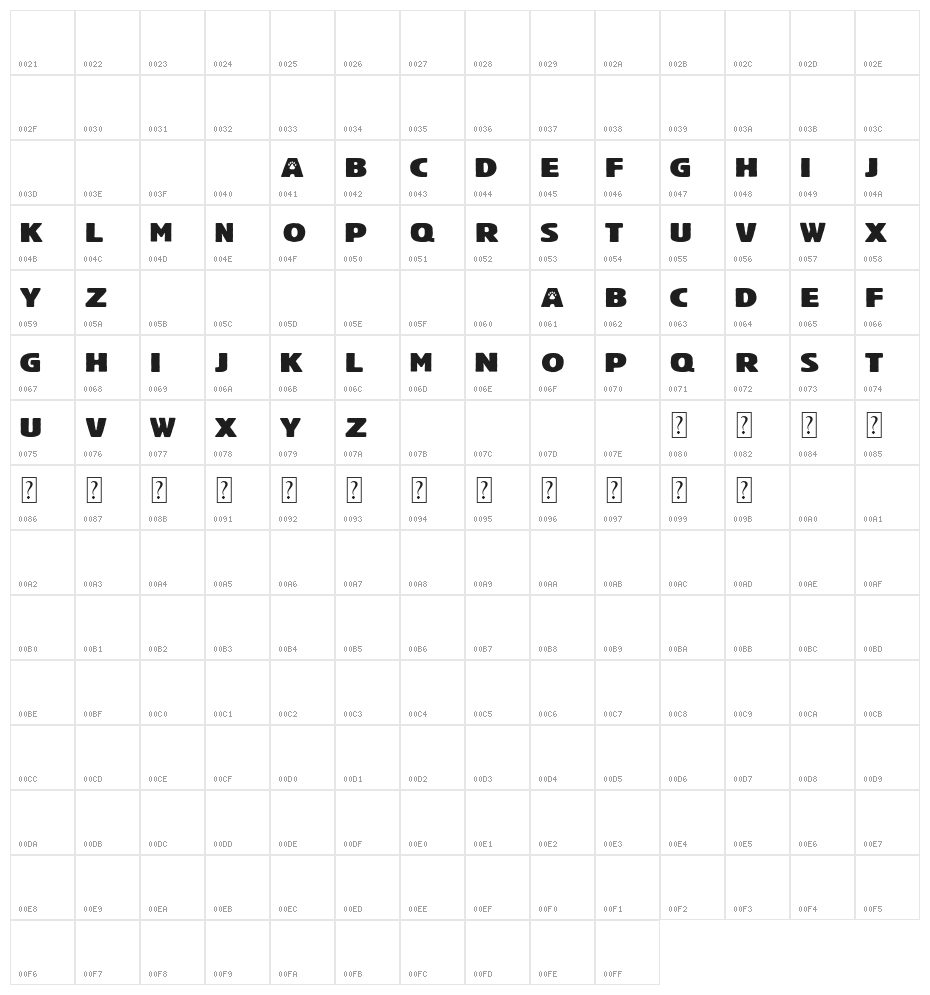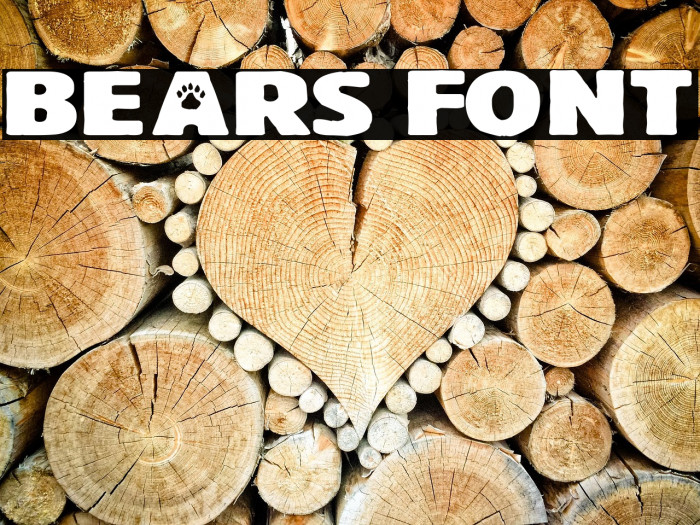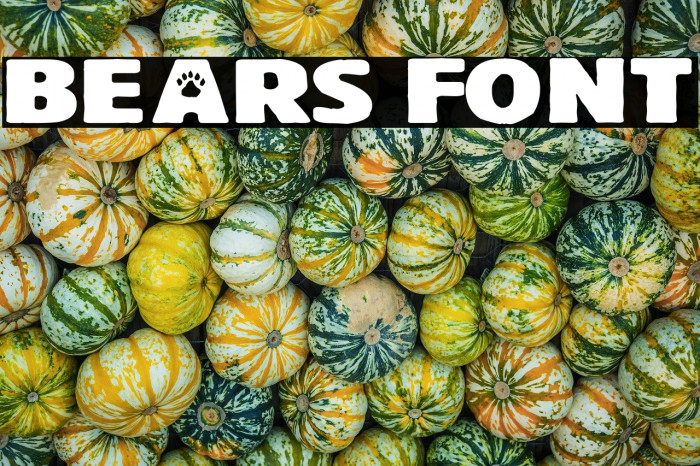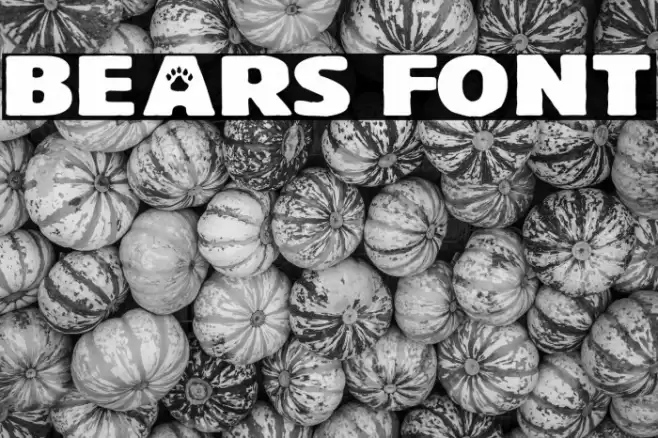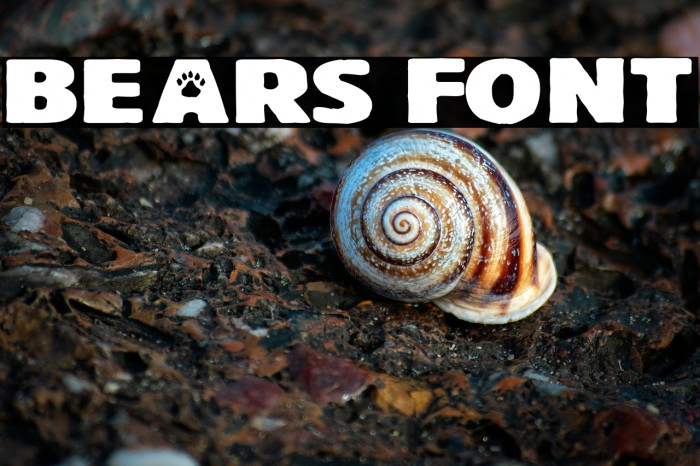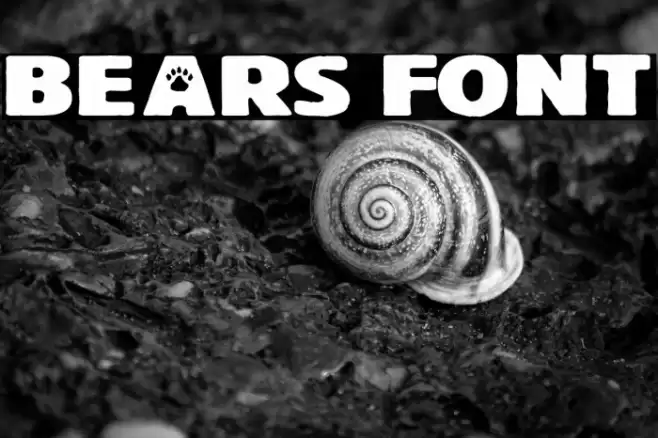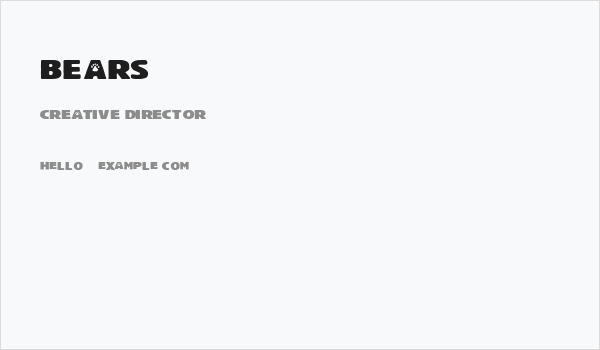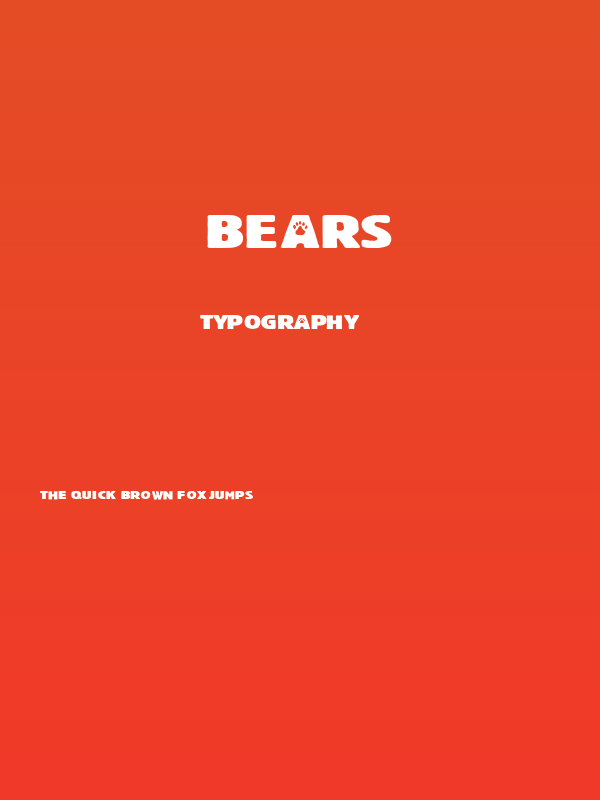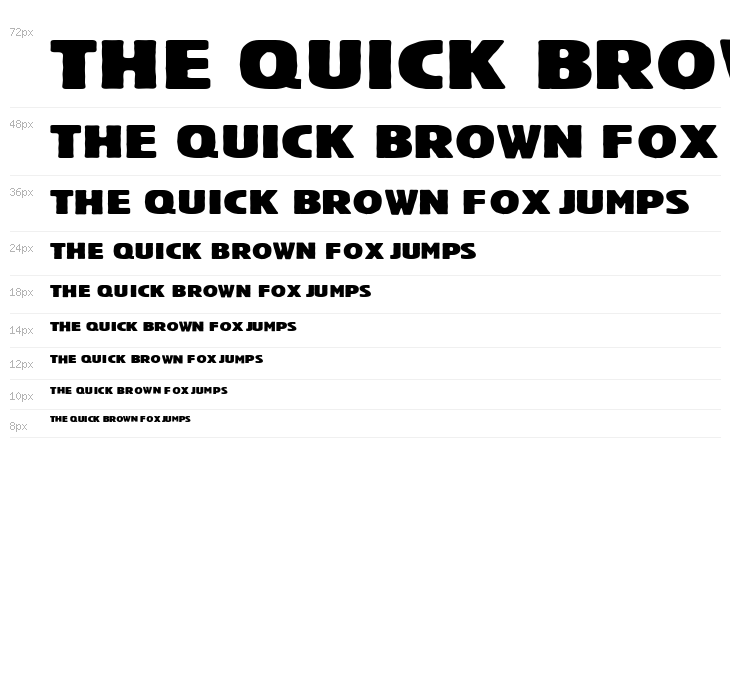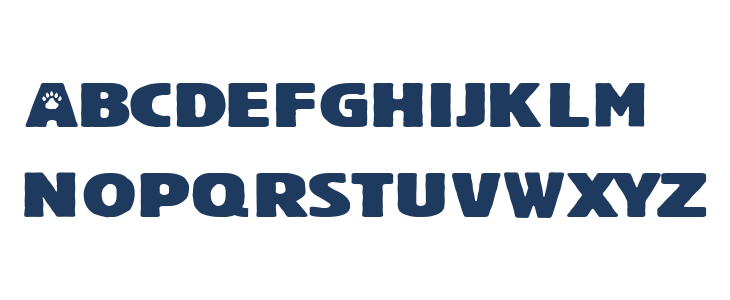
BEARS Font
BEARS Description
This font features a bold and playful design, characterized by thick, rounded letters that convey a sense of fun and creativity. The unique aspect of this font is the inclusion of a bear paw print within the letter 'A', adding a distinctive and thematic element. The letters are evenly spaced, providing a balanced and cohesive look. The font's boldness makes it highly legible and suitable for attention-grabbing headlines or titles. Its playful nature suggests a lighthearted and informal tone, making it ideal for projects aimed at children or nature-themed designs.
| Overall Style | Playful, Thematic |
| Proposed Projects | Ideal for children's book covers, nature-themed posters, playful branding, and outdoor event flyers. |